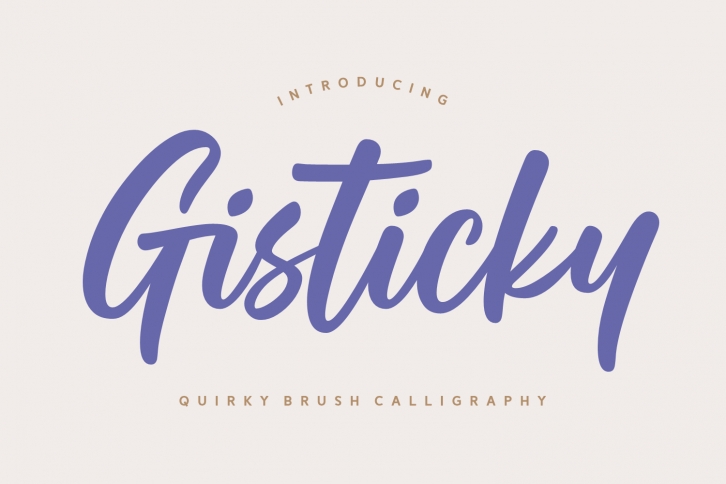
Gisticky is a gorgeous script font. It is PUA encoded which means you can access all of the glyphs and swashes with ease! Add it confidently to your projects, and you will love the results.